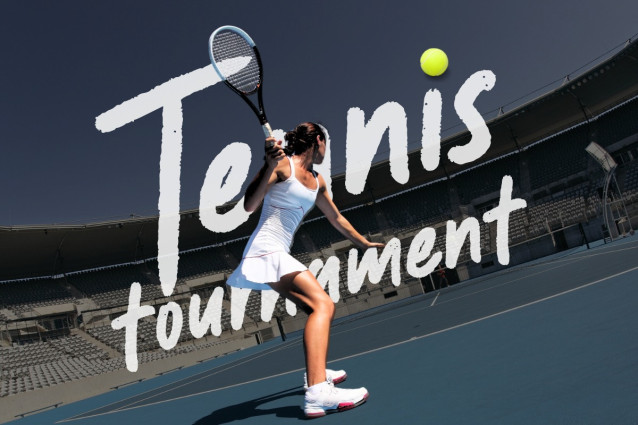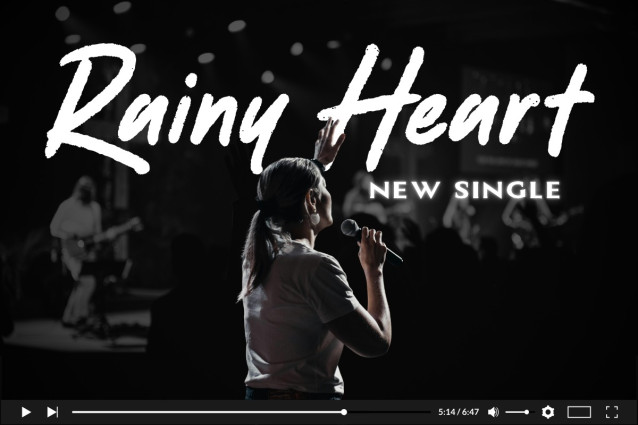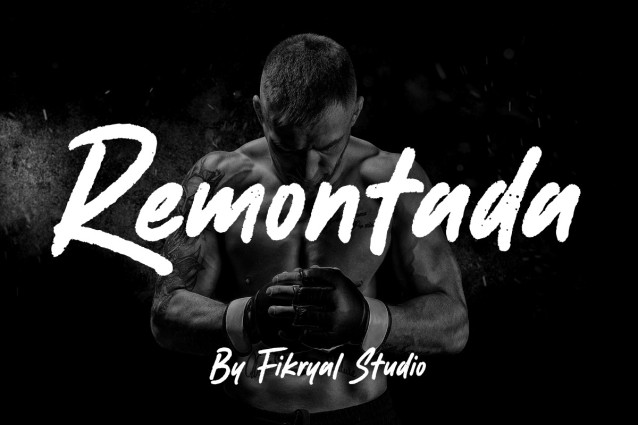
Remontada Font
Remontada Font – Brush Display Font is a handwritten brush display typeface that brings the raw energy of brush strokes into modern design. With both uppercase and lowercase letters, it offers flexibility and natural flow — perfect for bold headlines or expressive branding.
Each stroke in Remontada captures the texture and rhythm of real brush handwriting, giving your work a handcrafted, artistic look that feels authentic and powerful.